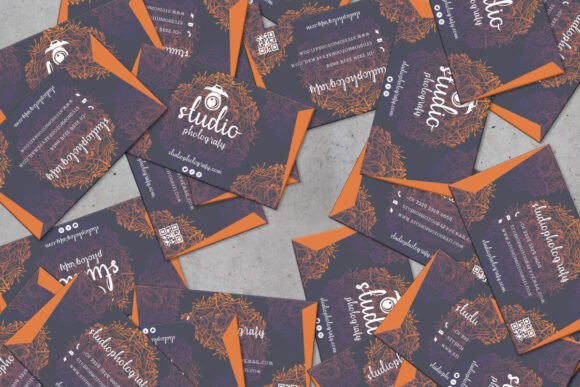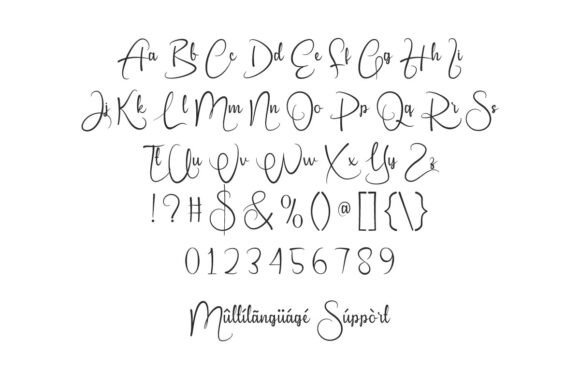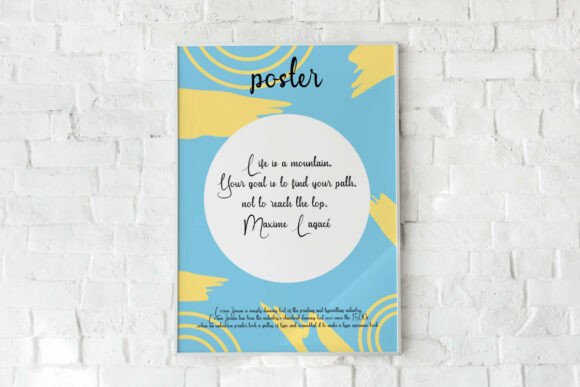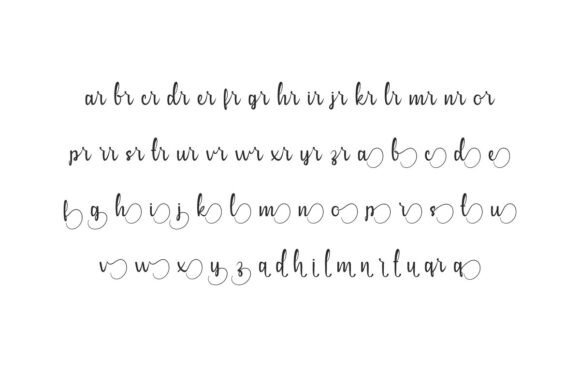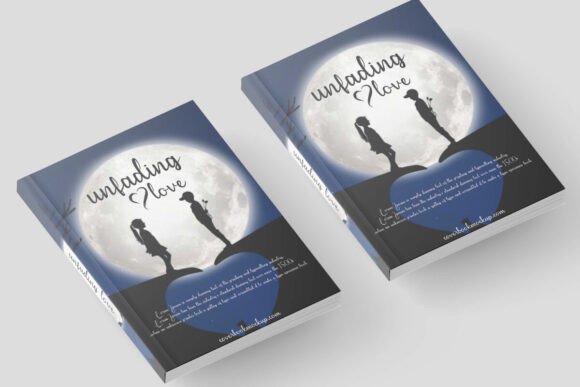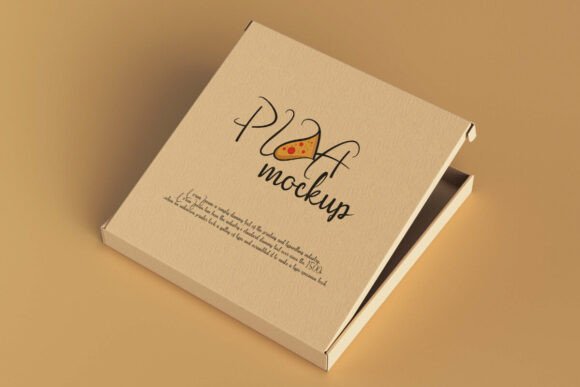
The Perfect Touch: Unlocking the Magic of Berkleigh Font
Have you ever been working on a design project, pouring your heart and soul into every detail, only to feel like something’s missing? That elusive spark that takes your creation from ordinary to extraordinary? For many designers, it’s finding the right font that can make all the difference.
Enter Berkleigh Font, a stunning cursive script that’s designed to add a touch of elegance and sophistication to any design. With its smooth, flowing lines and feminine charm, Berkleigh Font is the perfect addition to any project, from advertising and publishing to event planning and beauty products.
What sets Berkleigh Font apart is its versatility and timeless appeal. Whether you’re a seasoned designer or just starting out, this beautiful font is sure to become a trusted companion in your creative journey.
Berkleigh Font Key Features
- Unique Characteristics: Berkleigh Font features a unique blend of modern and vintage elements, with intricate details and ornate flourishes.
- Script and Language Support: Includes a wide range of languages, including Latin, Cyrillic, and Greek scripts.
- Font Weight and Style: Offers a range of weights, from Light to Bold, and various styles, including Regular, Italic, and Bold Italic.
Berkleigh Font Review
I recently had the chance to work with the Berkleigh Font, and I’m excited to share my honest review with you.
- The Berkleigh Font is a beautiful, cursive script that’s perfect for adding a touch of elegance to your designs.
- It’s highly versatile and can be used for a wide range of applications, from invitations to branding materials.
- The font’s unique flair and intricate details make it stand out from more traditional script fonts.
- The Berkleigh Font is also highly legible, even at smaller font sizes, making it a great choice for body text.
- The Berkleigh Font can be quite ornate, which may make it difficult to read for some users.
- The font’s complexity can also make it challenging to pair with other fonts, especially those with a more modern or minimalist aesthetic.
Overall, I’m really impressed with the Berkleigh Font. Its unique style and high legibility make it a great choice for designers who want to add a touch of sophistication to their work. While it may have some limitations, I think the benefits far outweigh the drawbacks.
Some tips for getting the most out of Berkleigh Font include:
– Use it for titles and headings to add a touch of elegance.
– Pair it with other fonts to create a unique and interesting combination.
– Experiment with different font sizes and styles to create visual interest.
Berkleigh Font is commonly used for:
– Wedding invitations and stationery.
– Branding and marketing materials.
– Digital and print-based designs where a touch of sophistication is needed.
Q: What is the character set and language support for Berkleigh Font?